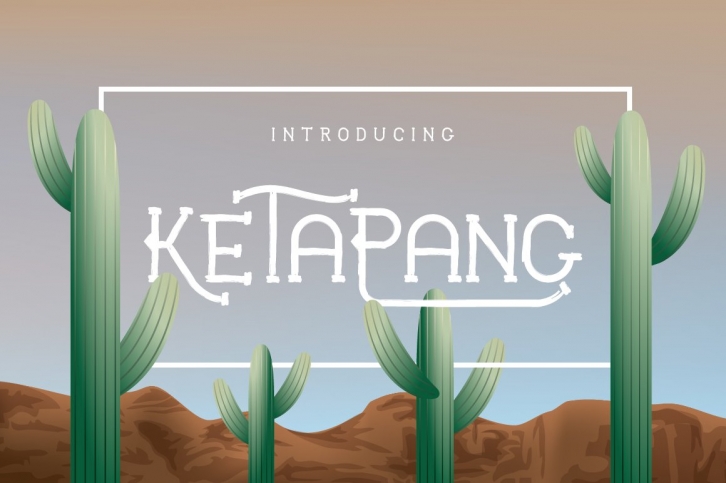
Ketapang is a brush script typeface inspired by traditional Asian pirates of the perilous Southeast sea. Get your adventure on with this swashbuckling font that’s perfect for headings, logos, logo types, labels, posters, quotes, and many more. Ketapang comes in rough and regular styles. Font features include uppercase & lowercase, numerals & punctuations, ligatures and stylistic alternate.